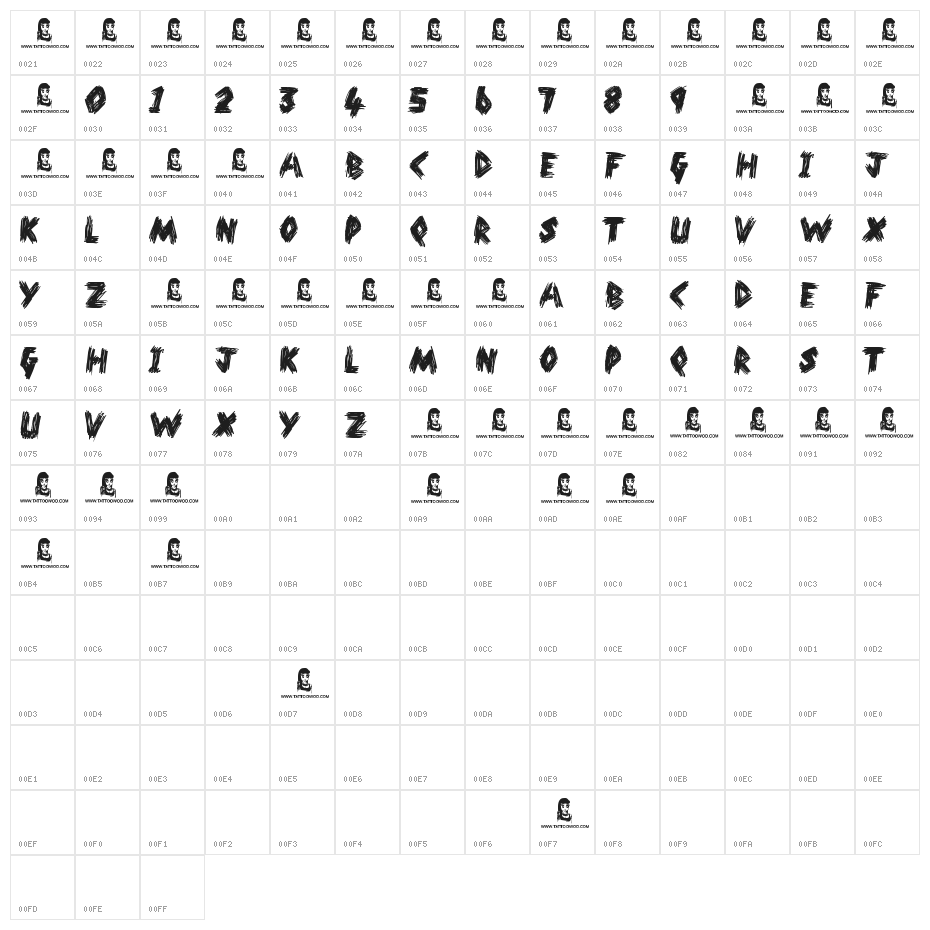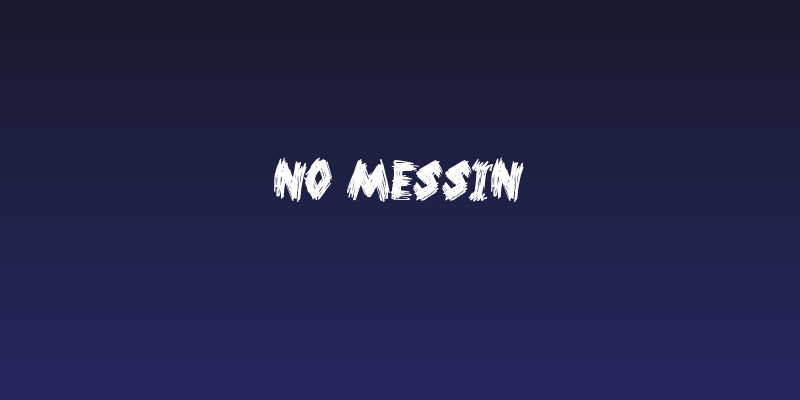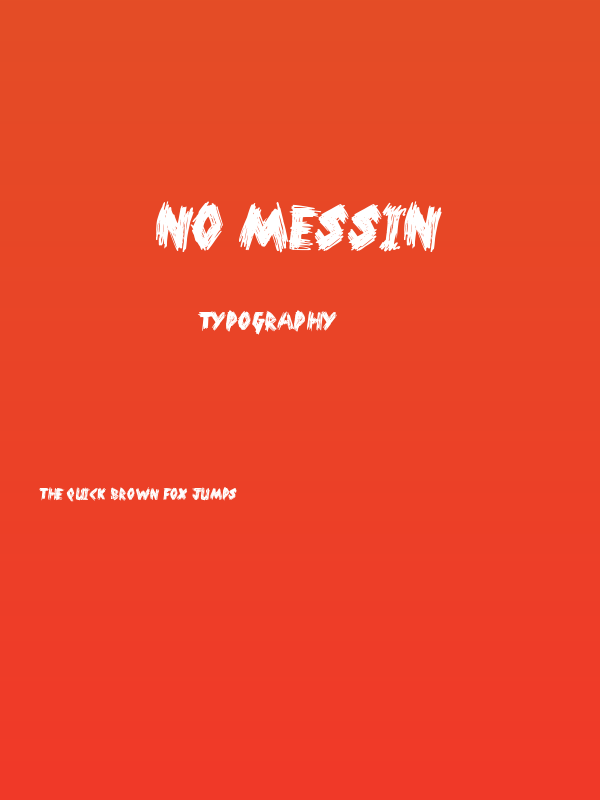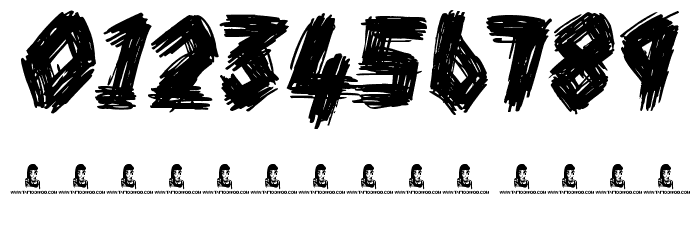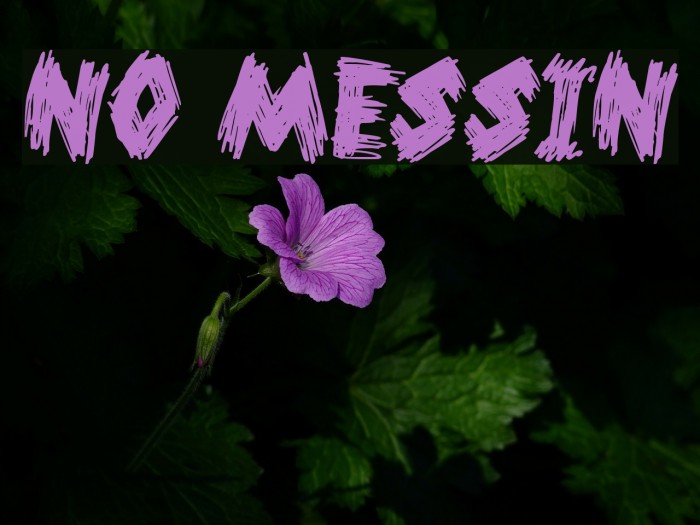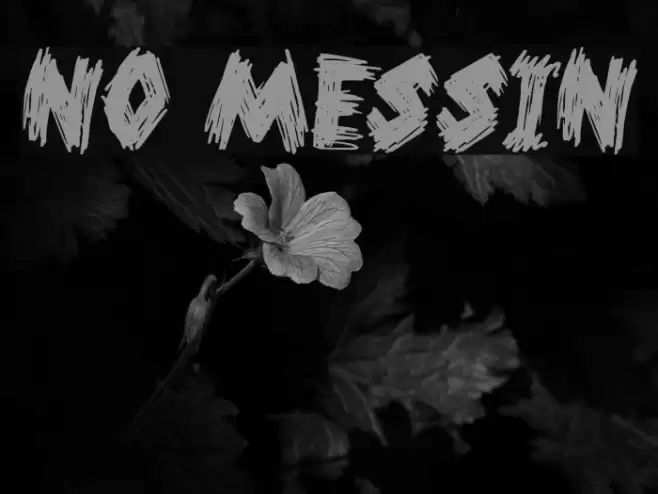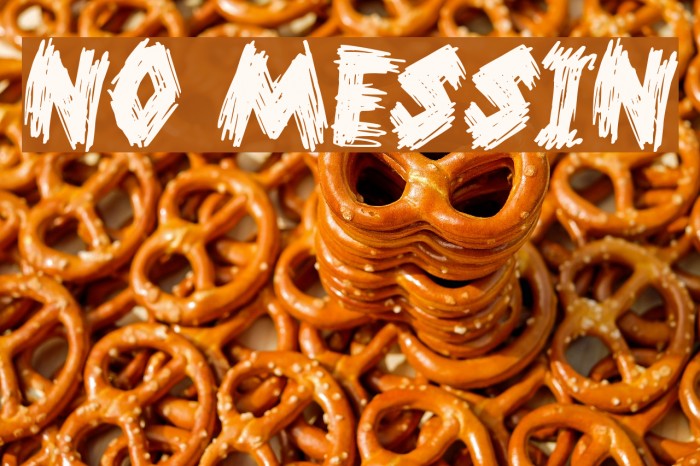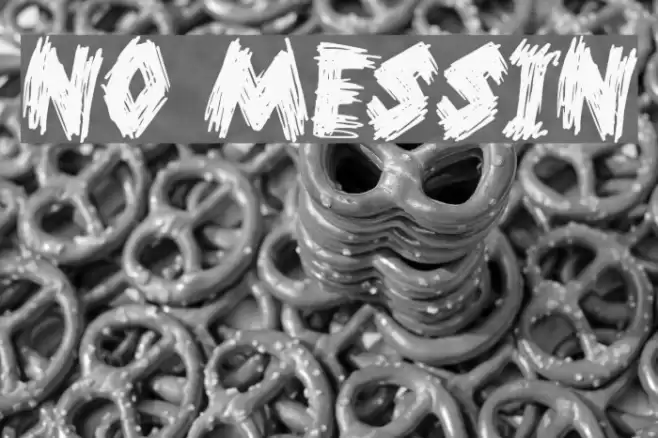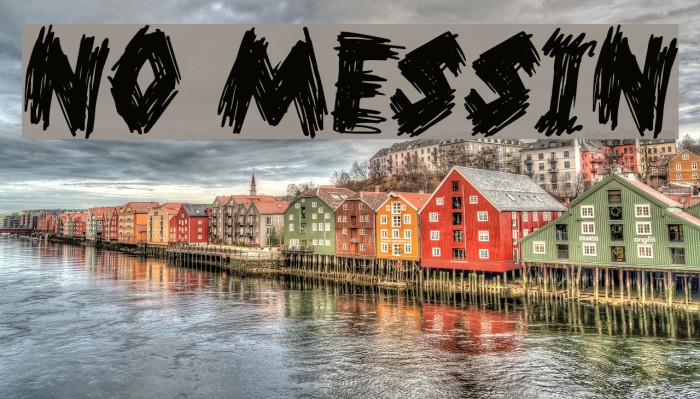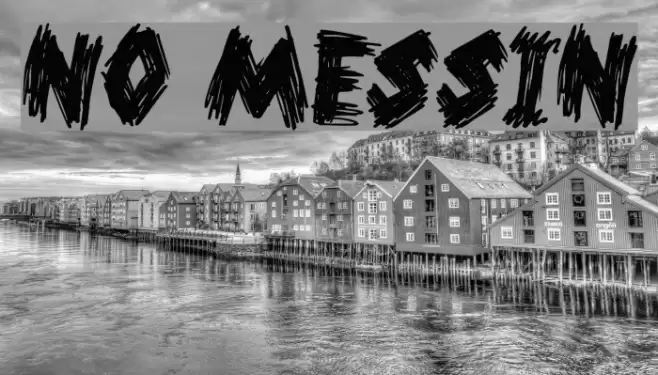
No Messin Font
| Estilo general | Modern, Edgy |
| Caso de uso | Headlines, Posters, Branding |
| Proyectos propuestos | Ideal for music album covers, graffiti art, streetwear branding, or any project requiring a bold, edgy statement. |